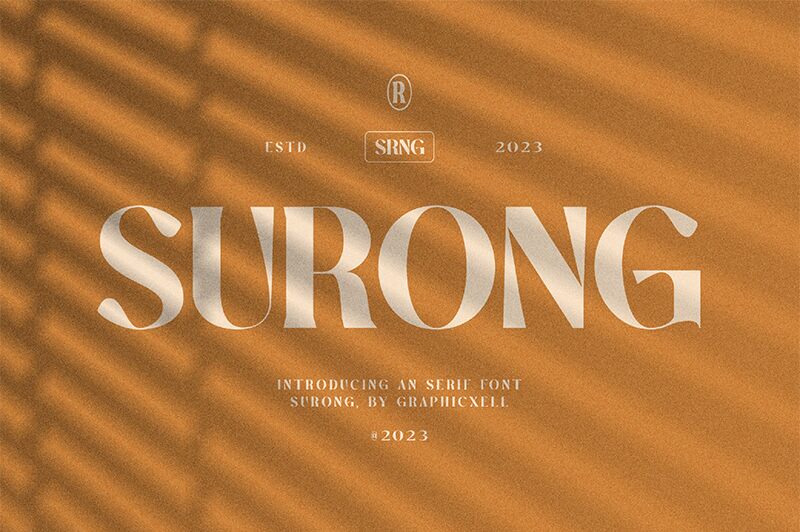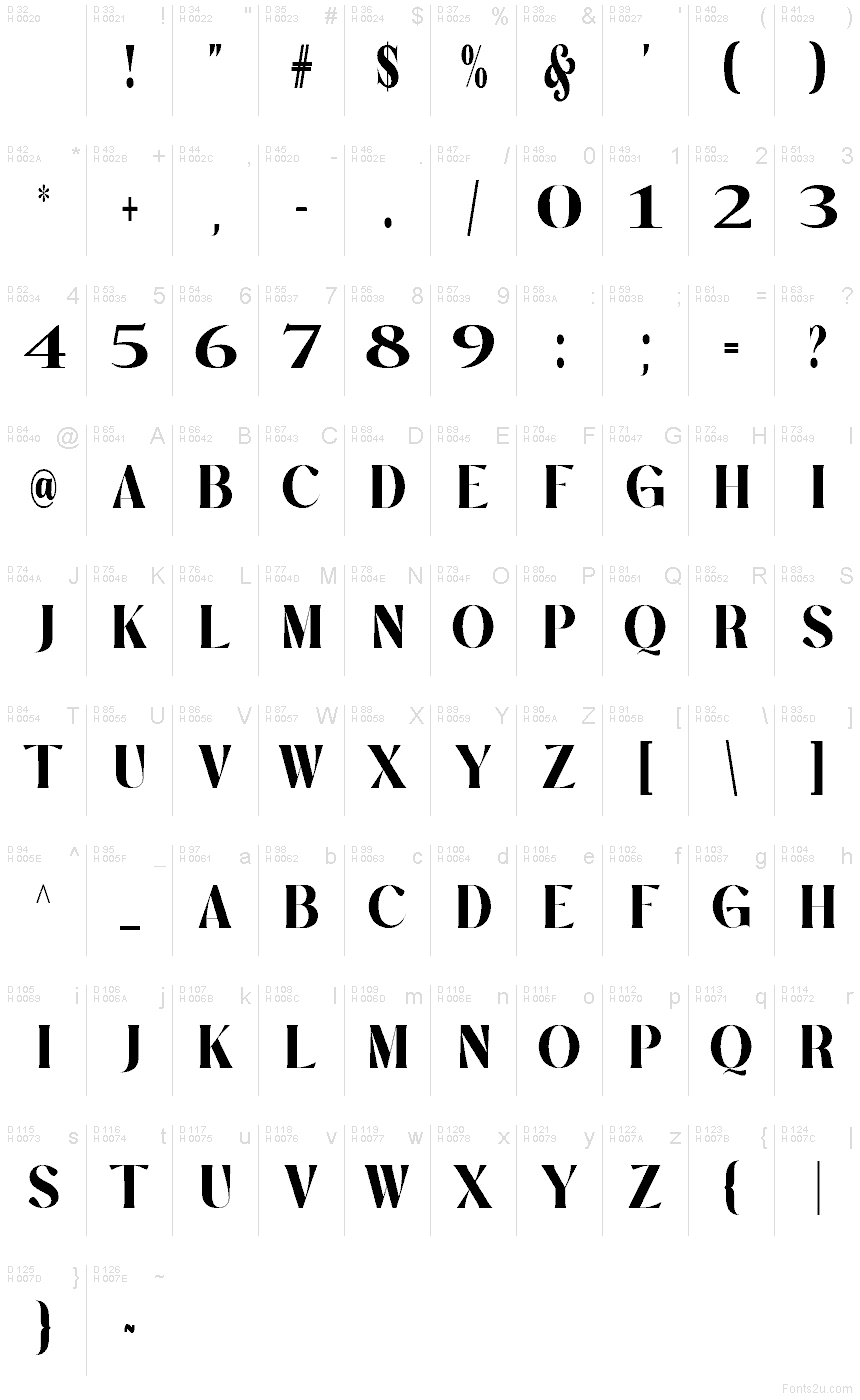
Surong
Surong font by Graphicxell is a free serif typeface with big, sculpted curves and blade‑sharp wedges that carve light right through the forms. The letters feel chiseled—heavy strokes, crisp notches, and compact spacing that lands with immediate impact. It carries a refined swagger, mixing glossy, inky heft with sleek cuts that keep the rhythm snappy rather than bulky.
Using Surong, headlines and wordmarks grab attention without shouting. It shines on fashion branding, magazine covers, posters, upscale packaging, event invitations, and album art. The compact build loves generous tracking at large sizes, and it pairs cleanly with a light geometric sans for supporting text. This free font brings statement energy while staying polished and usable.